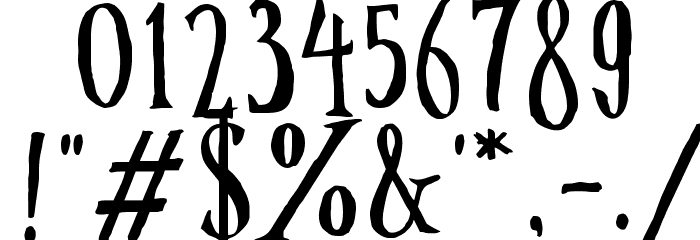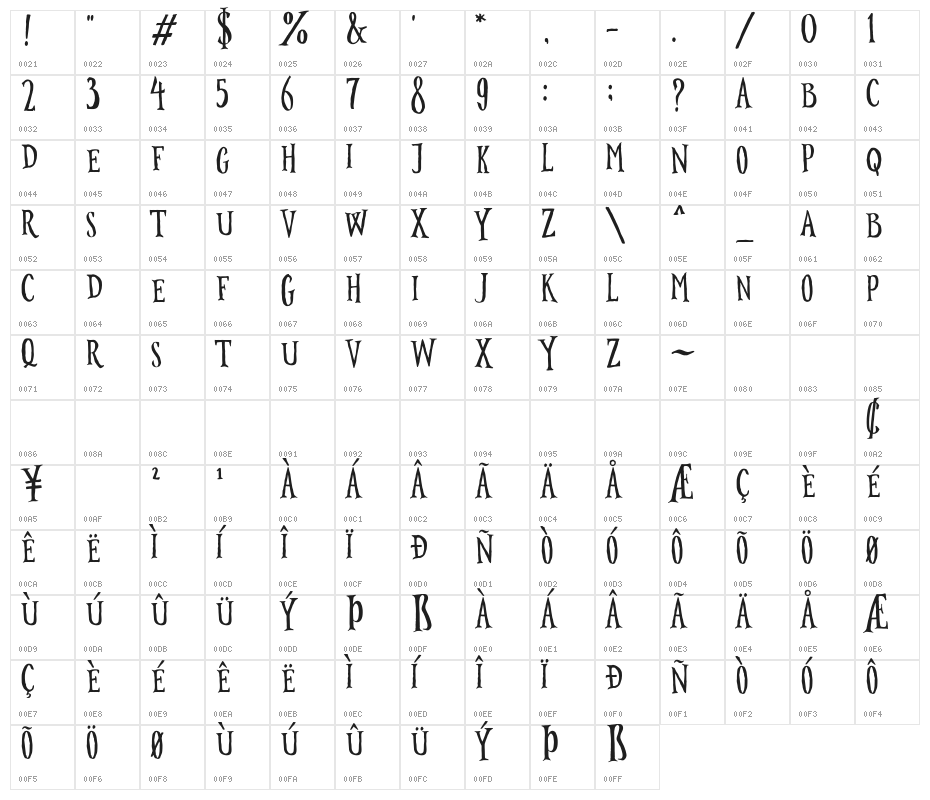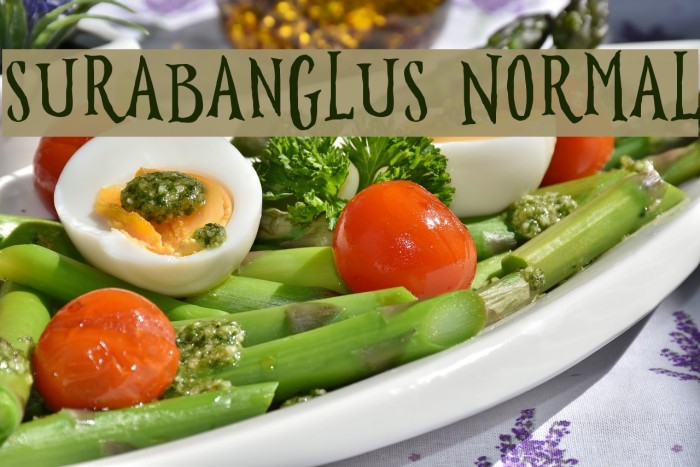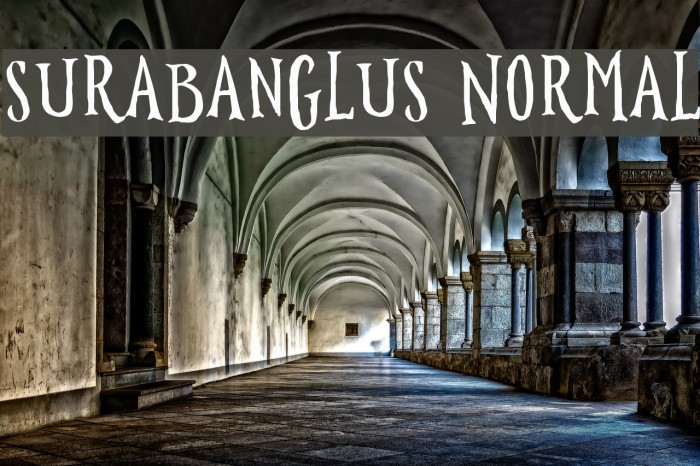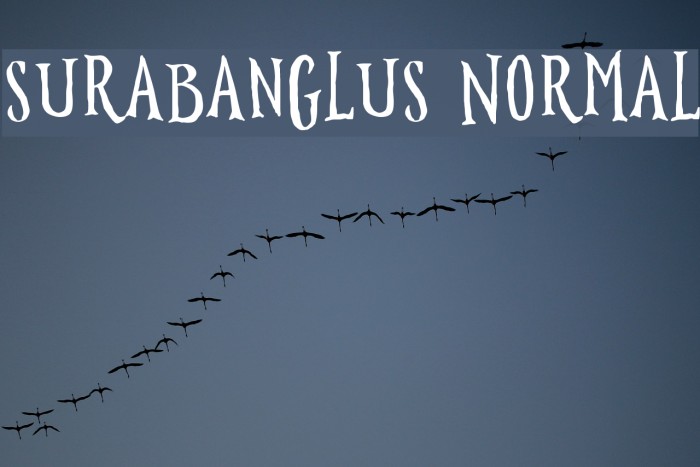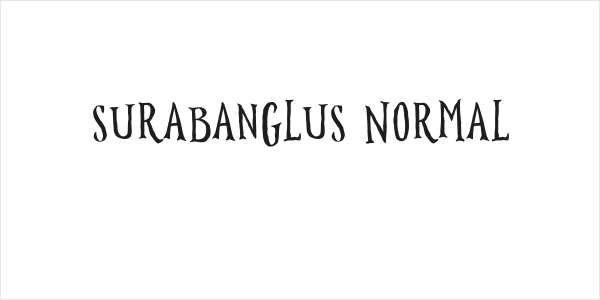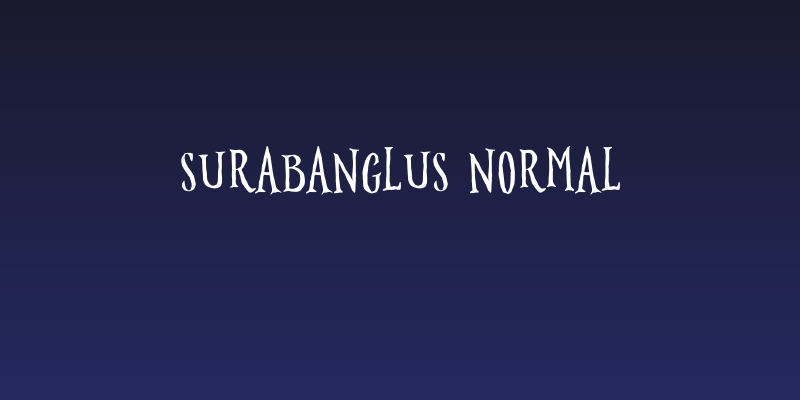
Surabanglus Normal Font
Surabanglus Normal Description
This font features a hand-drawn, rustic style with uneven strokes and a slightly whimsical appearance. The characters have a playful, organic feel, with varying stroke widths that add to its charm. The uppercase and lowercase letters maintain a consistent style, with the uppercase being slightly taller and more pronounced. The numbers and special characters follow the same artistic theme, making the font cohesive across all elements. Its unique style makes it stand out, perfect for projects that require a touch of creativity and individuality.
| Proposed Projects | Ideal for creative projects such as posters, invitations, and branding that require a unique, artistic touch. |